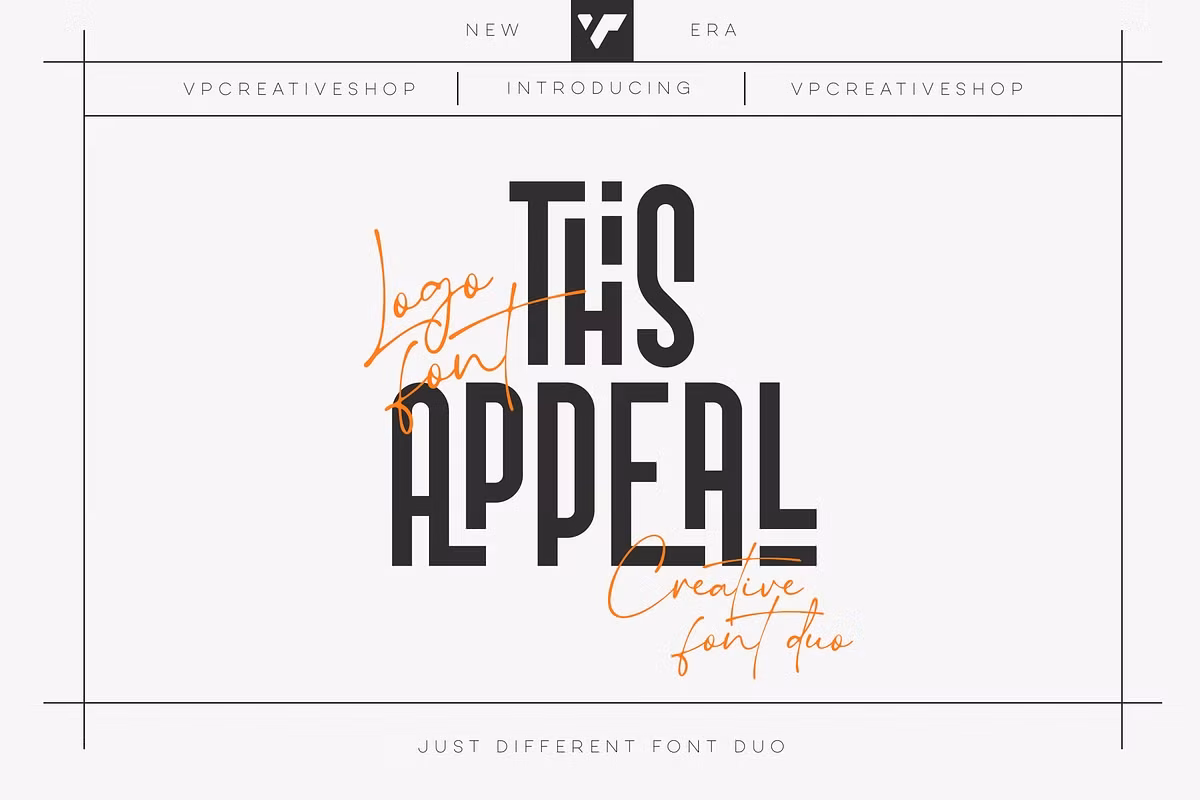
This Appeal - creative font duo Free Download
This Appeal - Creative Font Duo Free Download
Please note, you must purchase this font for commercial use. However, you can easily download This Appeal - Creative Font Duo Free Download for personal use and testing purposes. This Appeal - Creative Font Duo is a stylish and versatile font pair that combines a modern sans-serif with a playful script font. Perfect for a variety of design projects, from branding and logos to invitations and social media graphics, this font duo brings both elegance and personality to your typography. The clean and professional look of the sans-serif font pairs perfectly with the fluid and artistic style of the script font. Whether you're working on a fun project or a sophisticated design, This Appeal - Creative Font Duo Free Download will enhance your creativity. Download This Appeal - Creative Font Duo Free Download today and explore its potential before opting for a commercial license.